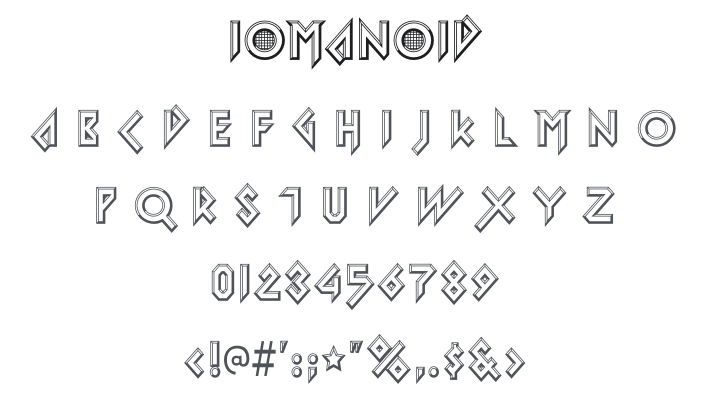
Iomanoid Font Family
About Iomanoid
Iomanoid is a mid-1980s video game-inspired techno display typeface with bold, angular letterforms that radiate pure arcade cabinet energy — clean, geometric, and unmistakably retro-futuristic. It comes in four layerable styles (regular, back, front, and shine) for striking dimensional colour effects. Perfect for retro game titles, arcade-themed branding, sci-fi posters, neon-lit nightlife graphics, and nostalgic 80s designs.